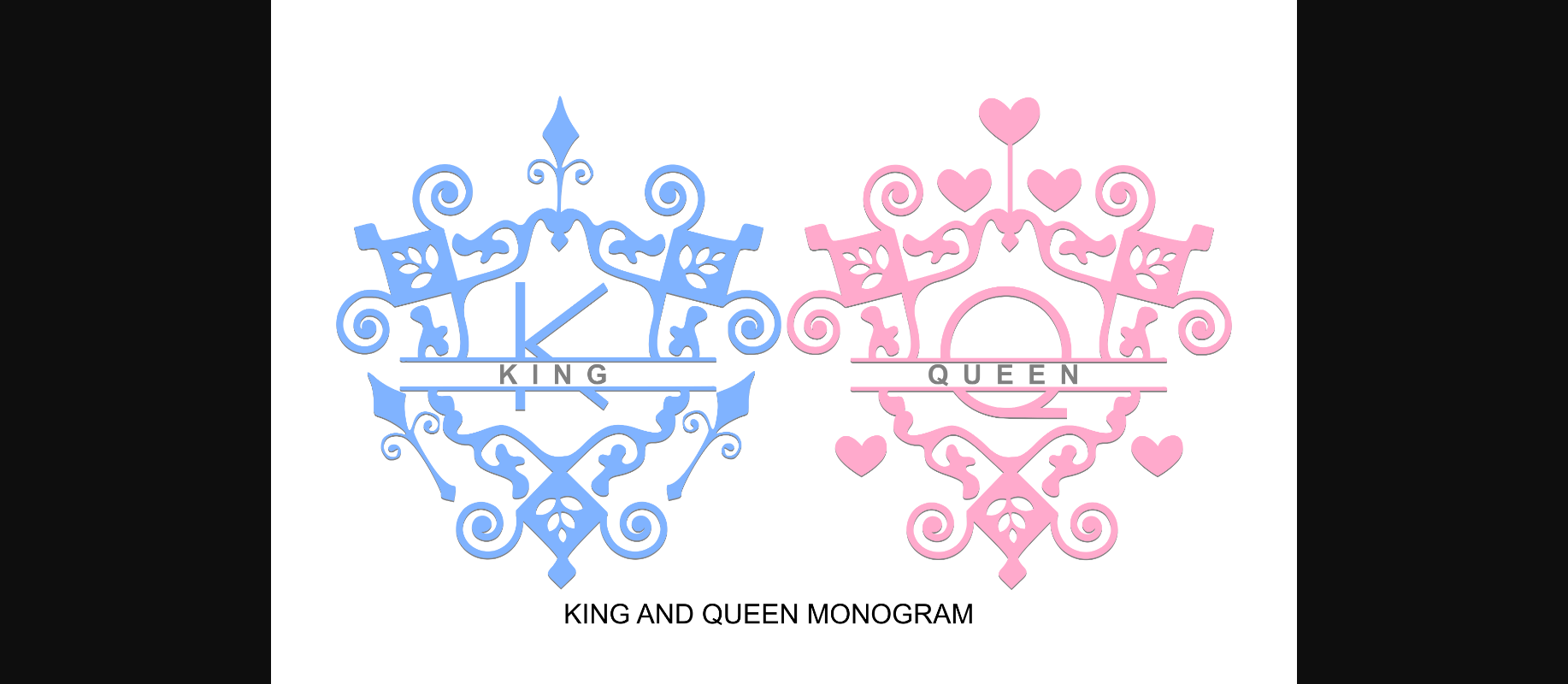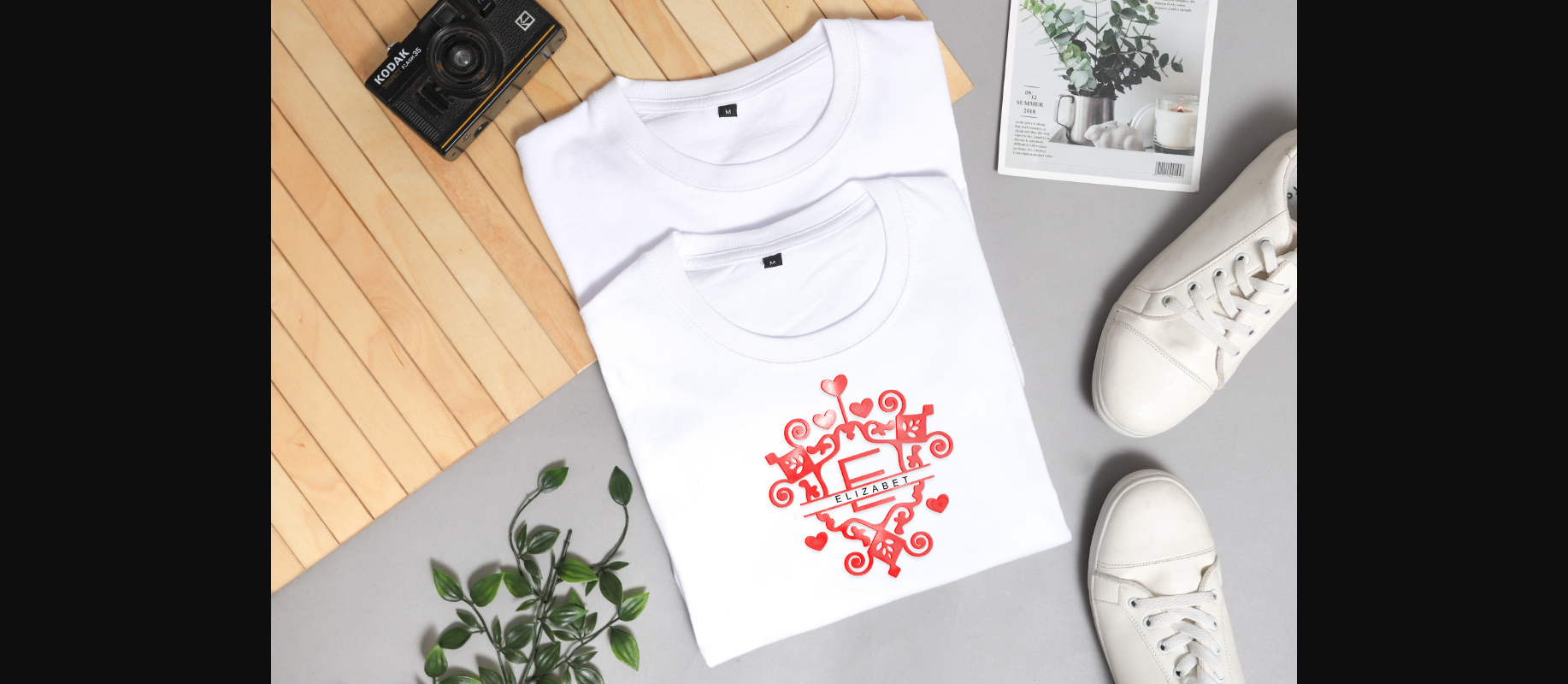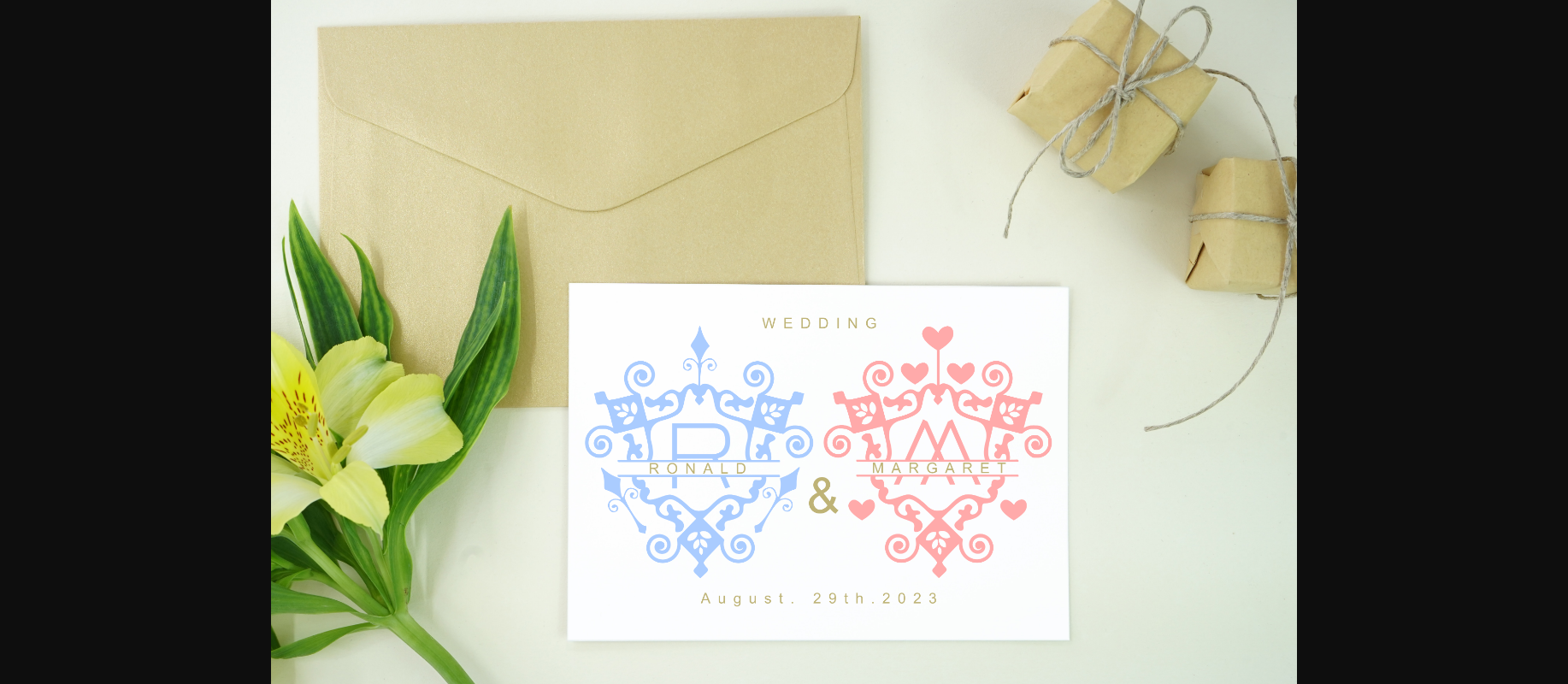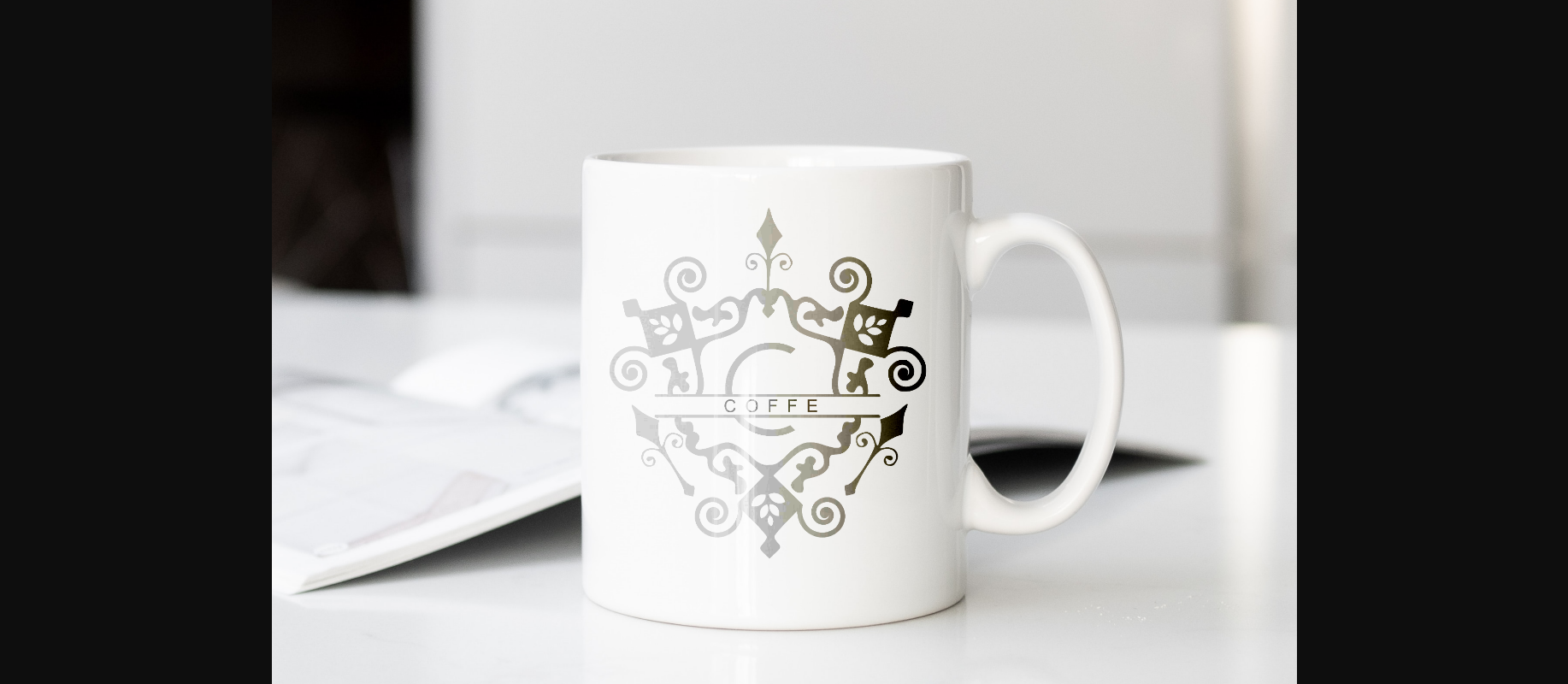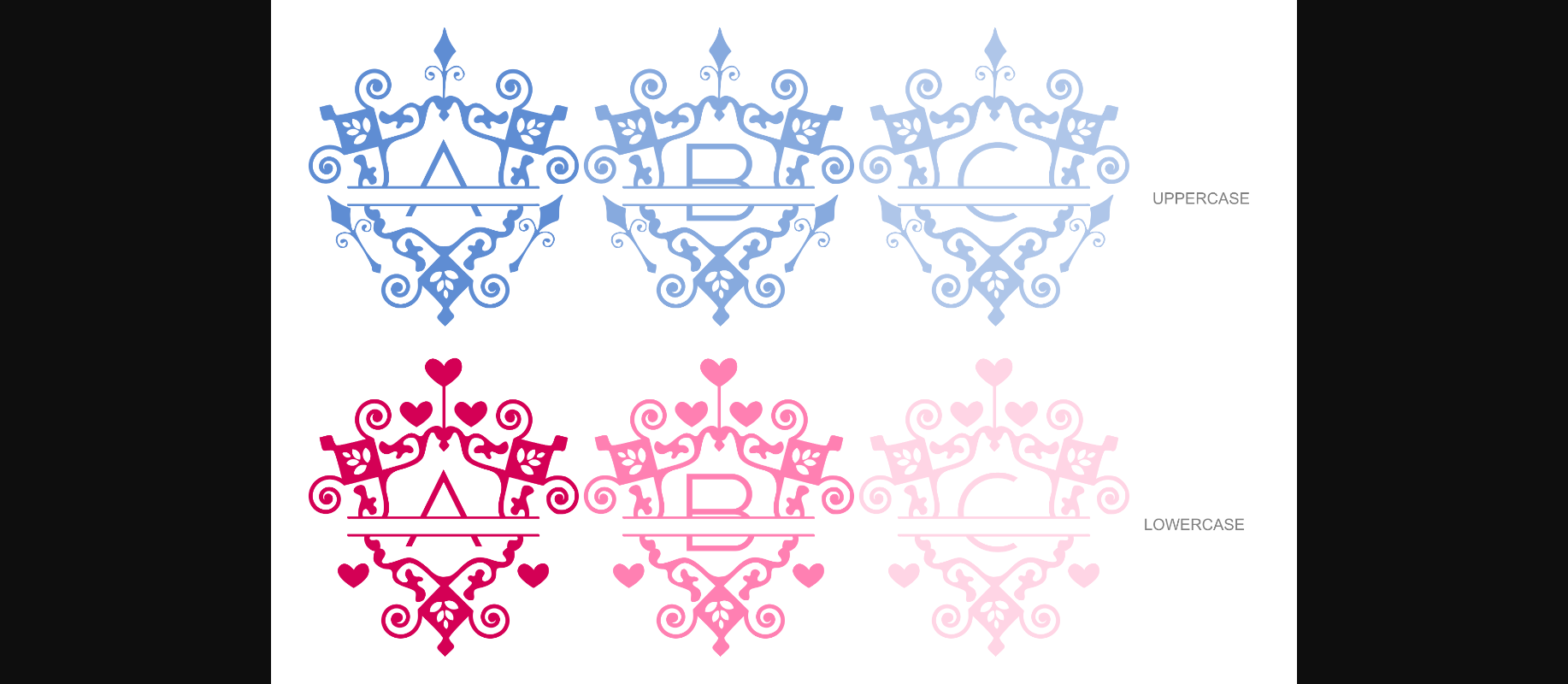
King and Queen Monogram Font
About King and Queen Monogram Font
KING and QUEEN Monogram is a charming decorative font. Fall in love with its authentic feel and use it to create gorgeous invitations, beautiful stationary art, eye-catching social media posts, and cute greeting cards.